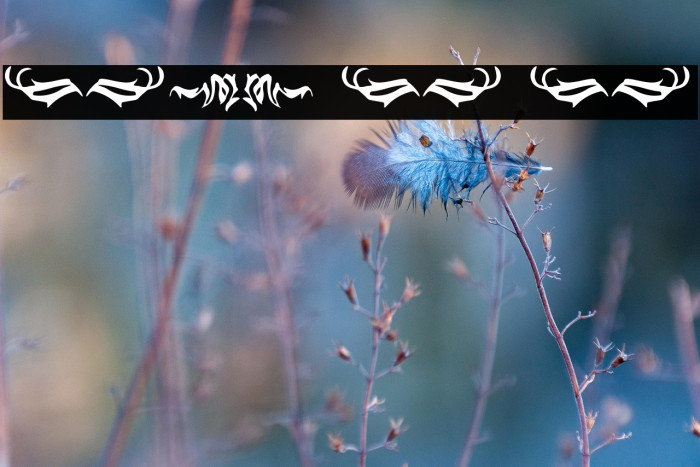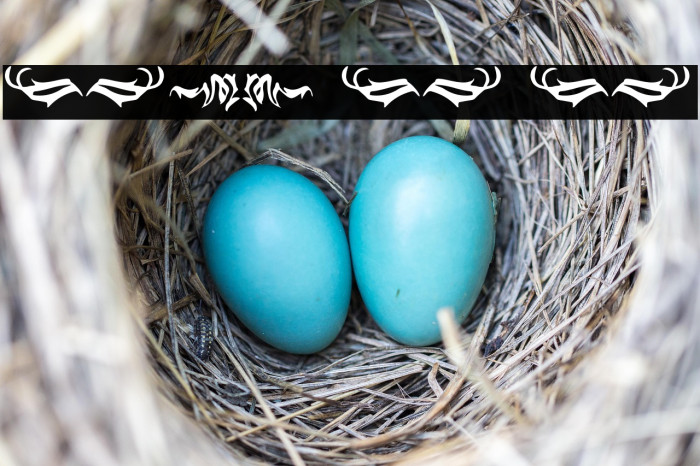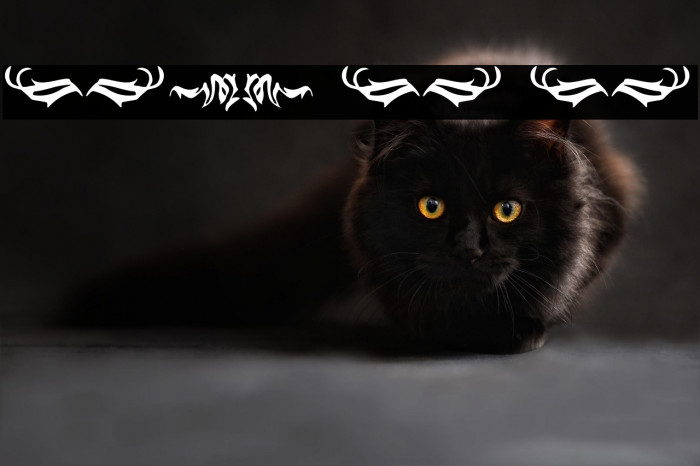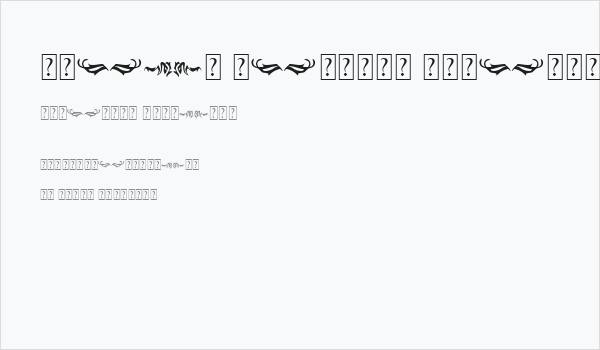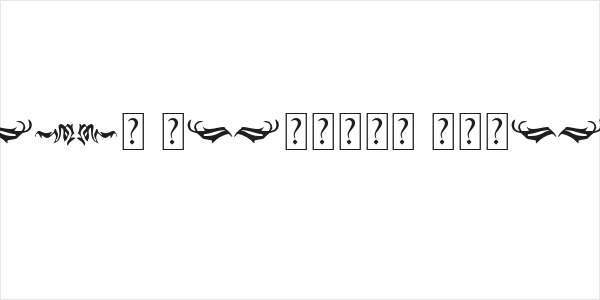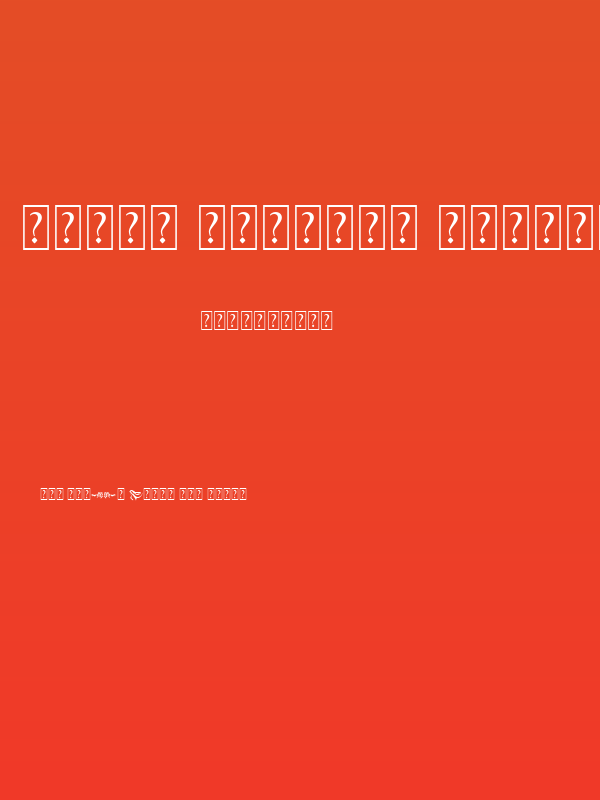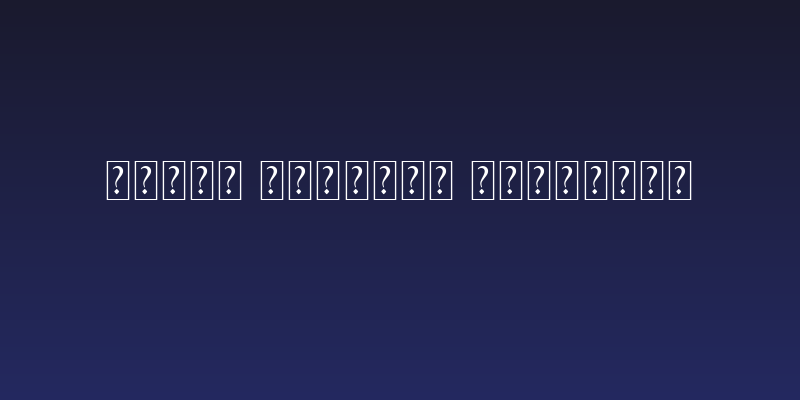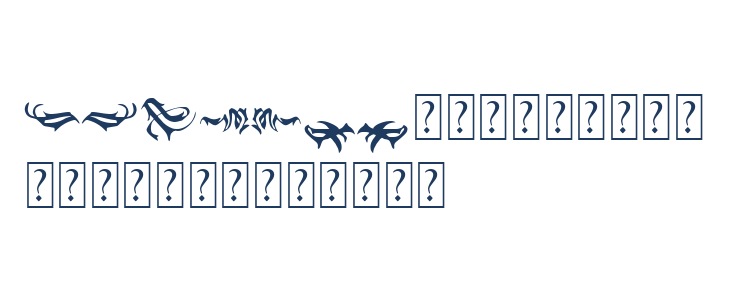
Black Panther Ornament Font
Black Panther Ornament Description
This is not a valid font. The image contains ornamental designs and question marks instead of a complete set of alphanumeric characters. The central row features intricate, tribal-like patterns that are decorative in nature, rather than functional as a typeface. The surrounding question marks suggest placeholders or missing elements, indicating that this is not a standard font set for textual purposes.
Use CaseOrnamental design, not suitable for text.
Proposed ProjectsThis design could be used for decorative purposes, such as tattoos, graphic design elements, or ornamental borders.